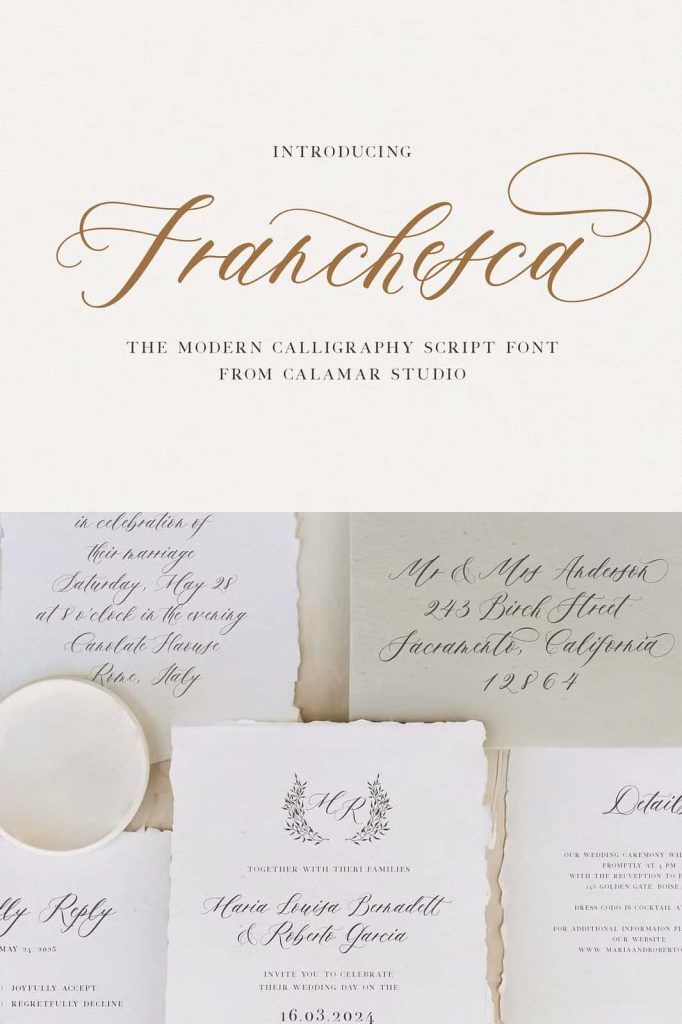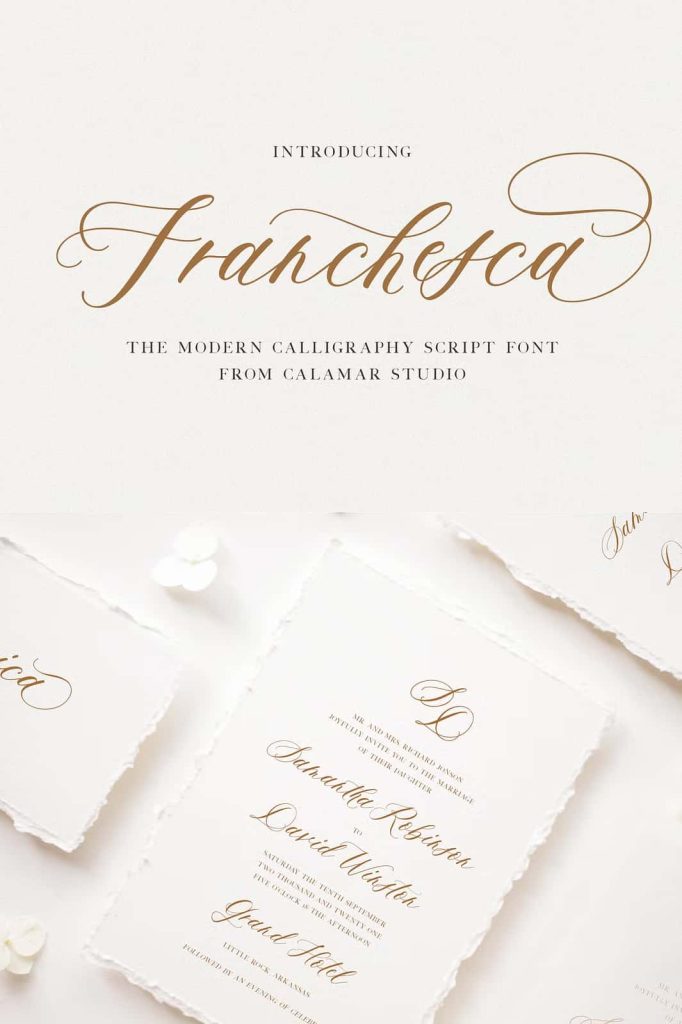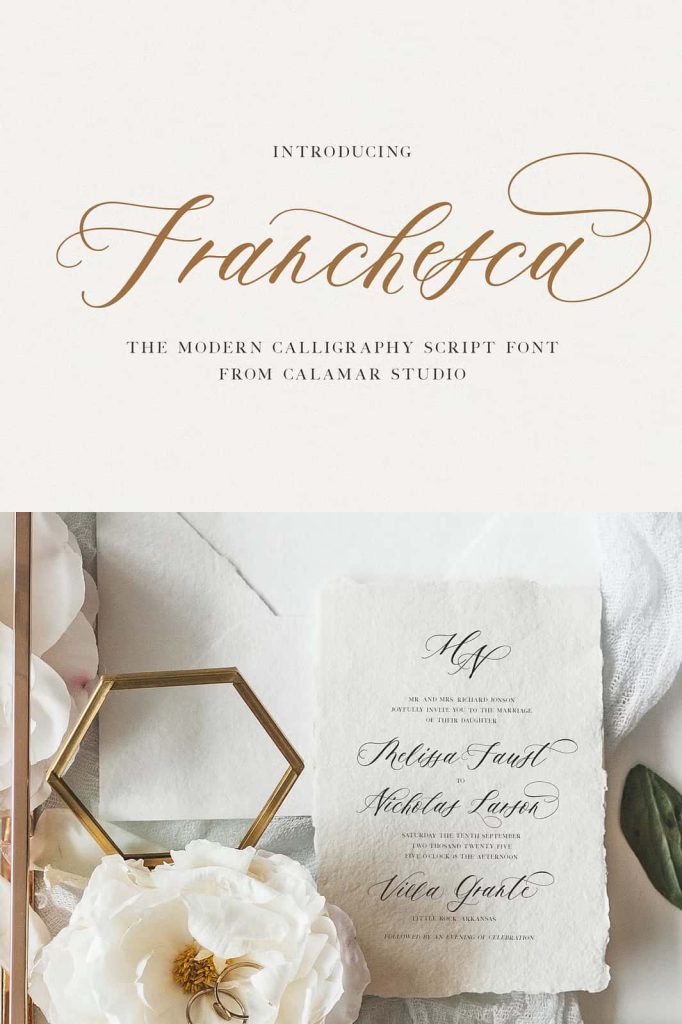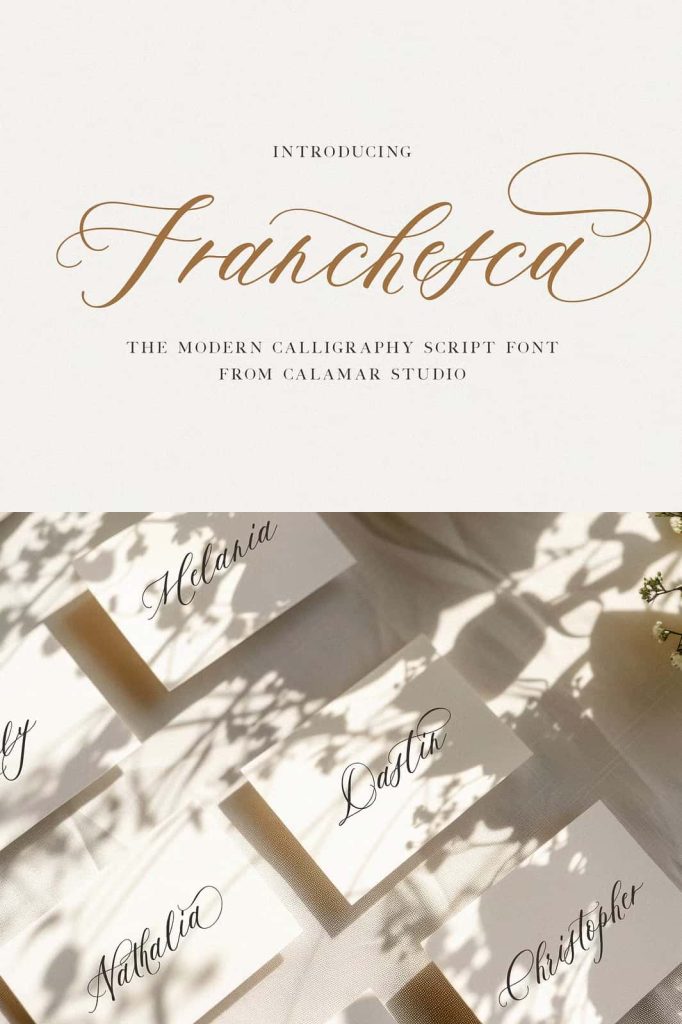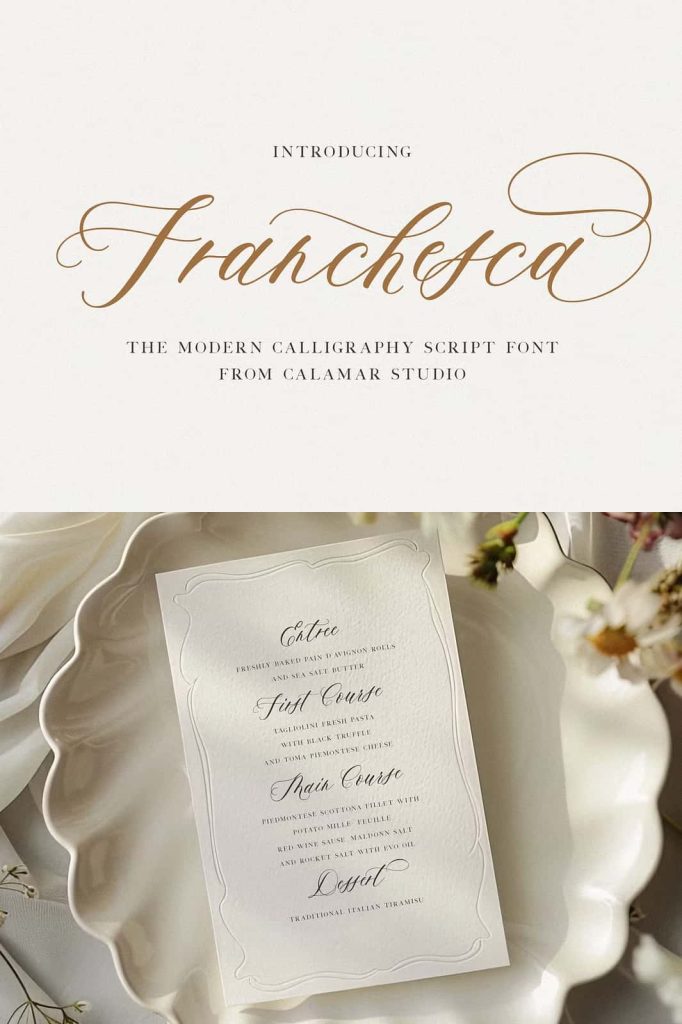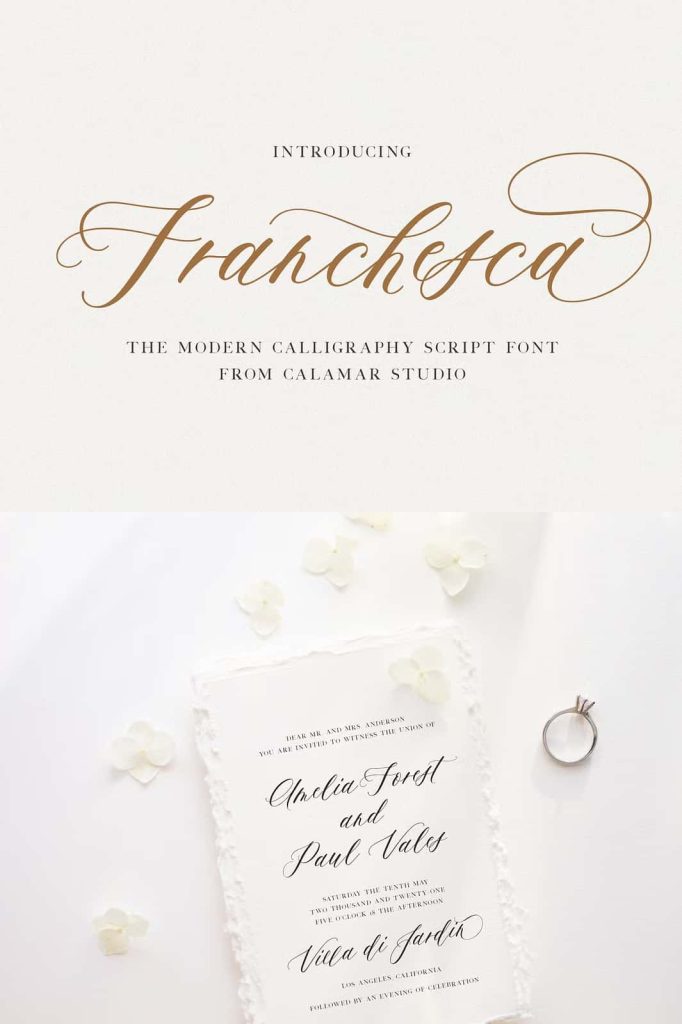
Franchesca |Wedding Calligraphy FontleastedJuly 31, 2025Fonts Meet Franchesca, a light wedding calligraphy script created in a modern calligraphy style. Download